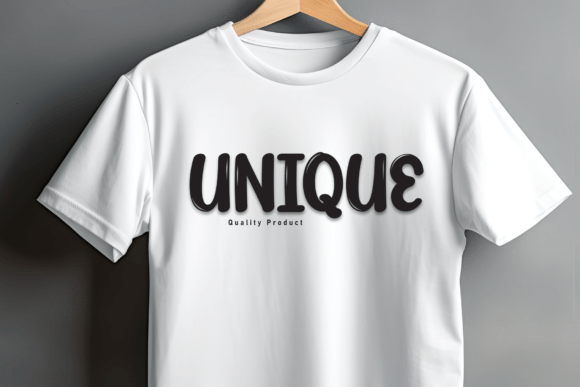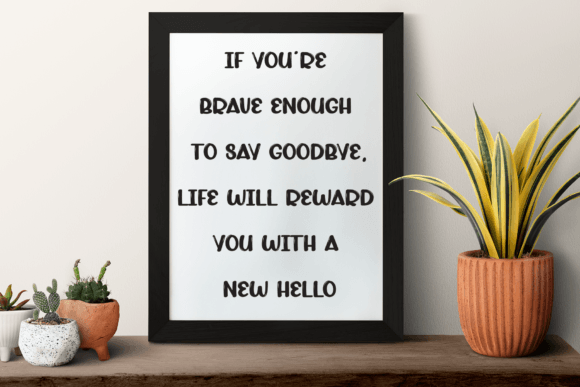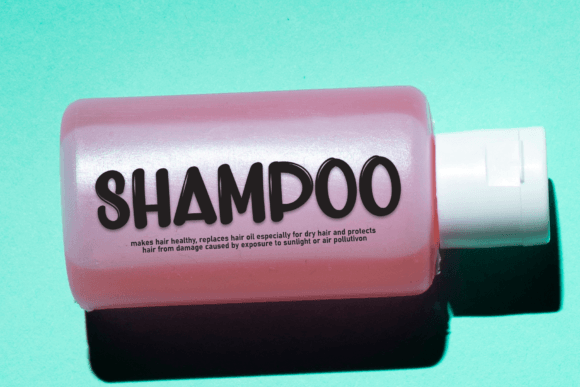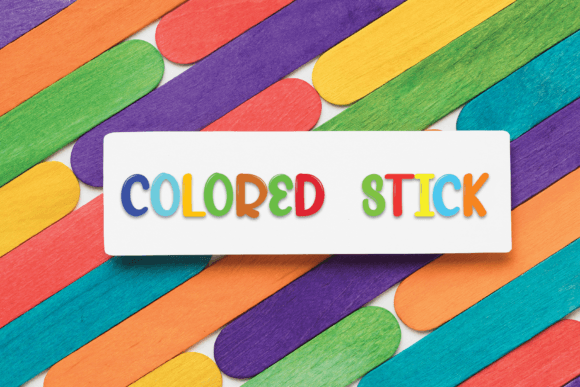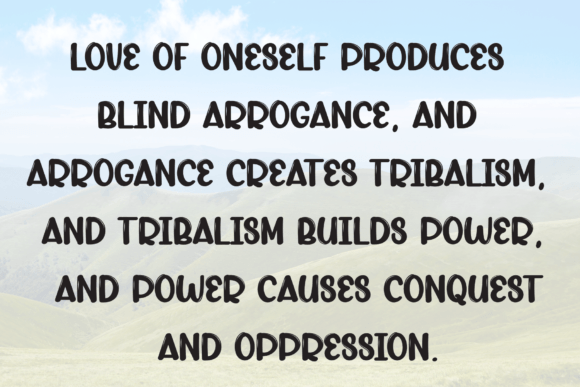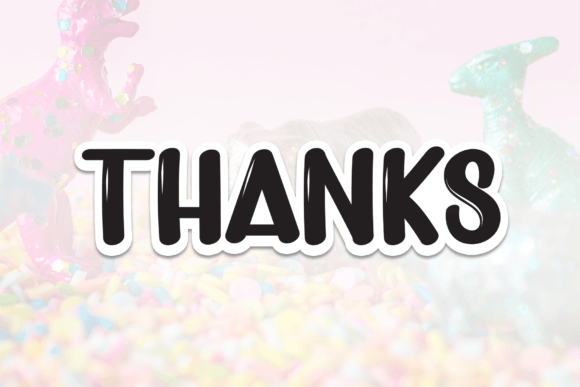
Unleash Your Creativity with Dinosaur Font: A Delightful Handcrafted Display Font
Are you tired of using the same old fonts for your design projects? Look no further! Introducing “Dinosaur”, a charming, handcrafted display font that is sure to bring a touch of whimsy and playfulness to your creations. With its unique fusion of innocence and vibrancy, this font is perfect for designers and crafters who want to add a dash of fun to their work.
The Charm of Dinosaur Font
Dinosaur font is a one-of-a-kind, handcrafted display font that exudes warmth and personality. Every character is carefully crafted to bring a sense of joy and playfulness to your designs. Whether you’re working on a wedding invitation, greeting card, or any other project that requires a touch of whimsy, Dinosaur font is the perfect choice.
So, what can you create with Dinosaur font? The possibilities are endless! Here are a few ideas to get you started:
- Wedding Invitations: Add a touch of romance and playfulness to your wedding invitations with Dinosaur font. It’s the perfect way to set the tone for a fun and joyous celebration.
- Greeting Cards: Create heartwarming greeting cards for birthdays, holidays, or any special occasion with Dinosaur font. The font’s playful vibe is sure to bring a smile to the recipient’s face.
- Children’s Party Invites: Dinosaur font is a great choice for kids’ party invitations. Its fun and playful design will get the little ones excited for the party.
- Branding and Packaging: Use Dinosaur font to add a touch of personality to your brand’s packaging and marketing materials. It’s a great way to stand out from the crowd and make your brand more relatable.
Why Choose Dinosaur Font?
So, what makes Dinosaur font so special? Here are a few reasons why designers and crafters love this font:
- Unique and Handcrafted: Dinosaur font is a one-of-a-kind, handcrafted font that is sure to make your designs stand out.
- Playful and Whimsical: The font’s playful and whimsical design makes it perfect for projects that require a touch of fun and personality.
- Easy to Read: Despite its playful design, Dinosaur font is easy to read and understand, making it perfect for a wide range of projects.
- Versatile: Dinosaur font can be used for a variety of projects, from wedding invitations to branding and packaging.
Tips for Using Dinosaur Font
Here are a few tips for using Dinosaur font in your designs:
- Pair it with Other Fonts: Dinosaur font looks great when paired with other fonts. Try pairing it with a clean sans-serif font for a contrasting look.
- Use it for Headings: Dinosaur font is perfect for headings and titles. Use it to add a touch of personality to your designs.
- Experiment with Colors: Dinosaur font looks great in a variety of colors. Experiment with different colors to find the one that works best for your design.